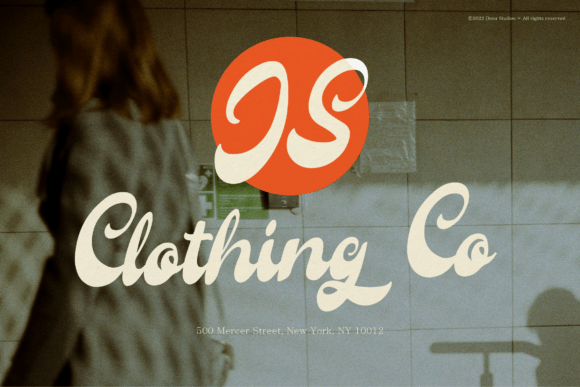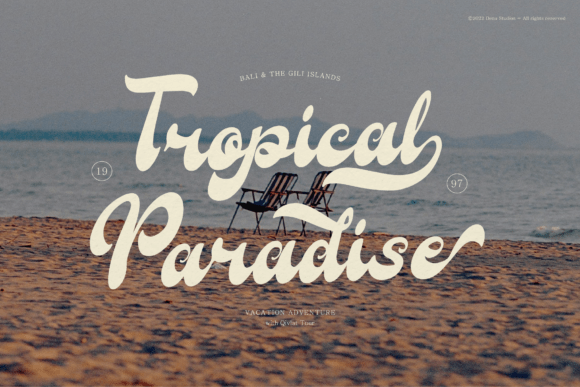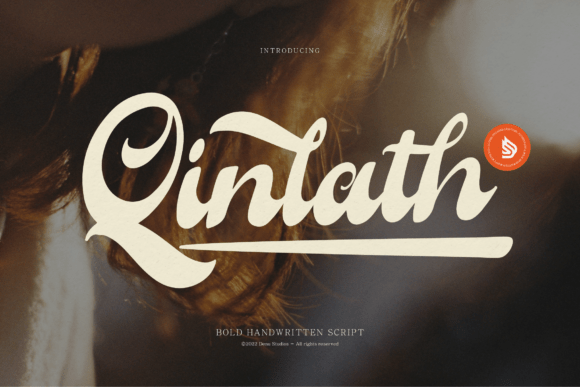
Introduction to Qinlath Font
Qinlath is a bold handwritten font, suitable for any projects such as: logos, branding projects, homeware designs, product packaging, mugs, quotes, posters, shopping bags, t-shirts, book covers, name card, invitation cards, greeting cards, label, photography, watermark, special events, and all your other lovely projects that need a Bold Handwritten Script taste.
Why Choose Qinlath Font?
Qinlath Font offers exceptional quality and versatility, making it a valuable addition to your design toolkit. Whether you’re creating for personal projects or commercial use, Qinlath Font delivers professional results.